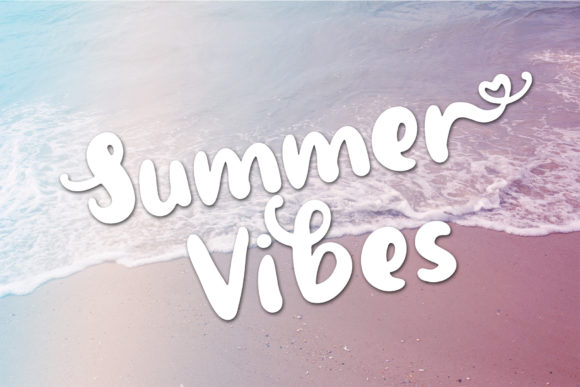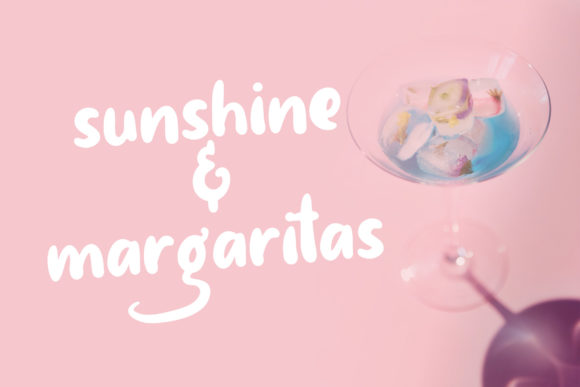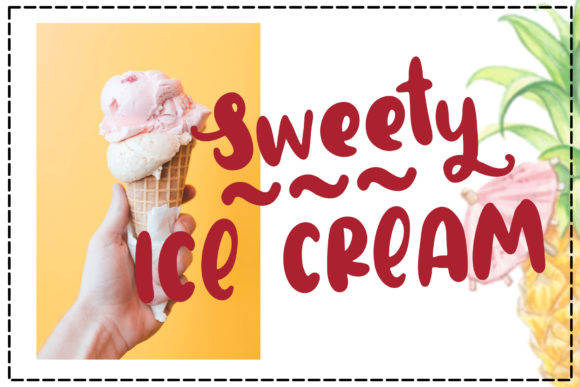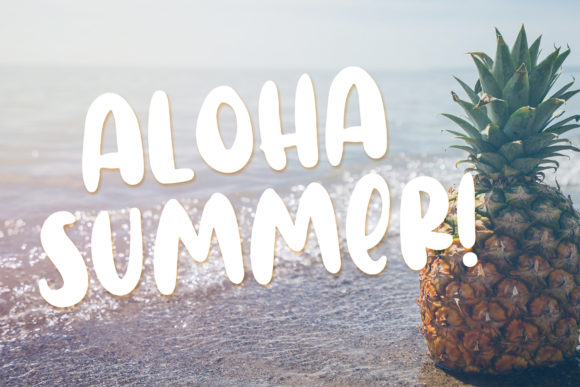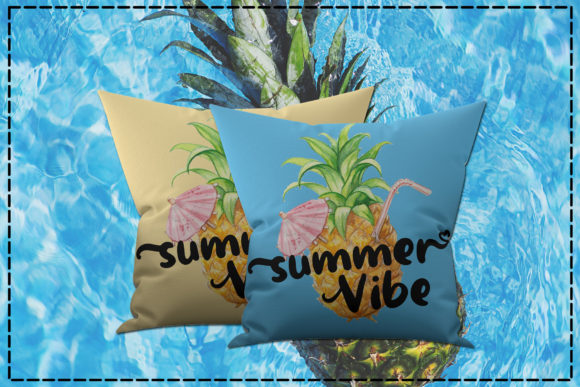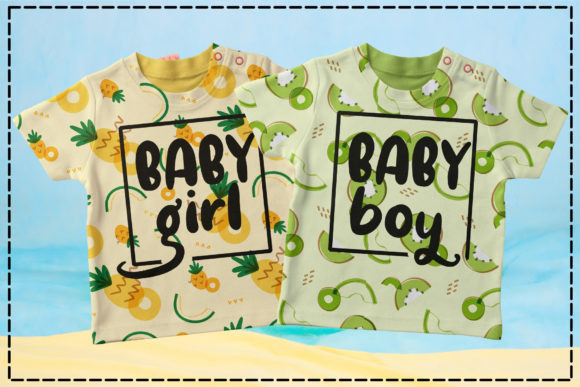
Introducing Amigos Font: The Ultimate Summery and Fun Handwritten Font
Are you tired of using the same old fonts for your design projects? Look no further! Amigos font is here to bring a breath of fresh air to your creative endeavors. This summery and fun handwritten font is perfect for designers and crafters who want to add a playful vibe to their work. Get inspired by its cool charm and take your designs to the next level!
What Makes Amigos Font So Special?
Amigos font is a unique and eye-catching handwritten font that exudes a carefree and summery feel. Its playful vibe makes it perfect for a wide range of design projects, from summer-themed crafts to fun and quirky branding materials. The font’s cool charm is sure to capture the attention of your audience and leave a lasting impression.
Key Features of Amigos Font
• Handwritten style: Amigos font is a genuine handwritten font, giving it a personal and authentic touch.
• Summery and fun: The font’s playful vibe and summery feel make it perfect for seasonal designs and projects.
• Playful vibe: Amigos font is designed to add a touch of whimsy and fun to your designs.
• Cool charm: The font’s unique charm is sure to set your designs apart from the rest.
• Versatile: Amigos font can be used for a wide range of design projects, from crafts to branding materials.
Amigos font is a dream come true for designers and crafters who want to add a personal touch to their work. Whether you’re creating summer-themed crafts, fun and quirky branding materials, or just want to add a touch of whimsy to your designs, Amigos font is the perfect choice. Its unique and eye-catching style is sure to inspire your creativity and take your designs to the next level.
Use Amigos Font for Your Next Project
So why settle for boring and generic fonts when you can use Amigos font to add a touch of fun and whimsy to your designs? With its summery and playful vibe, Amigos font is perfect for a wide range of design projects, including:
• Summer-themed crafts: Use Amigos font to create fun and colorful summer-themed crafts, such as party invitations, beach signs, and more.
• Fun and quirky branding materials: Add a touch of personality to your branding materials with Amigos font, perfect for businesses that want to stand out from the crowd.
• Social media graphics: Use Amigos font to create eye-catching social media graphics that are sure to grab the attention of your followers.
• Stationery and cards: Add a personal touch to your stationery and cards with Amigos font, perfect for special occasions and everyday correspondence.
Get Inspired by Amigos Font
Amigos font is more than just a font – it’s a design inspiration. Its unique and eye-catching style is sure to spark your creativity and inspire your next design project. Whether you’re a seasoned designer or a crafty DIY enthusiast, Amigos font is the perfect choice for anyone looking to add a touch of fun and whimsy to their work.
In conclusion, Amigos font is a summery and fun handwritten font that is perfect for designers and crafters who want to add a playful vibe to their work. With its cool charm and unique style, Amigos font is sure to inspire your creativity and take your designs to the next level. So why wait? Get Amigos font today and start creating fun and eye-catching designs that are sure to capture the attention of your audience!